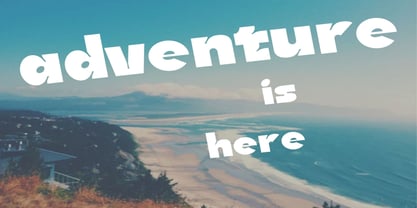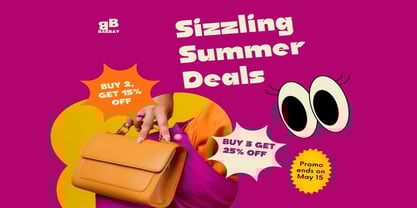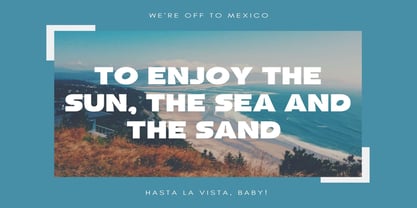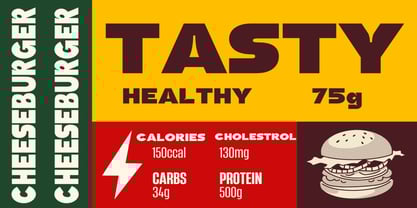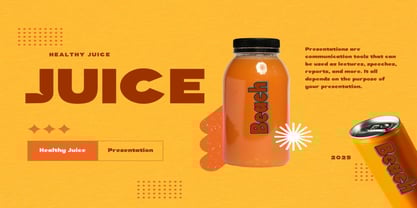
Beaech
von Dream Font
Die Schriftfamilie Beaech wurde von Lance Hidy entworfen und von Dream Font veröffentlicht. Beaech enthält 1 Stile.
BEAECH is a bold, funky sans-serif display typeface with unique ink trap accents. This typeface is perfect for various design projects, from branding and marketing materials to posters and game user interfaces. Its boldness and funky elements give it a modern, dynamic feel, making your designs stand out. Whether you’re crafting attention-grabbing ads or engaging digital interfaces, BEAECH offers a versatile and visually appealing solution